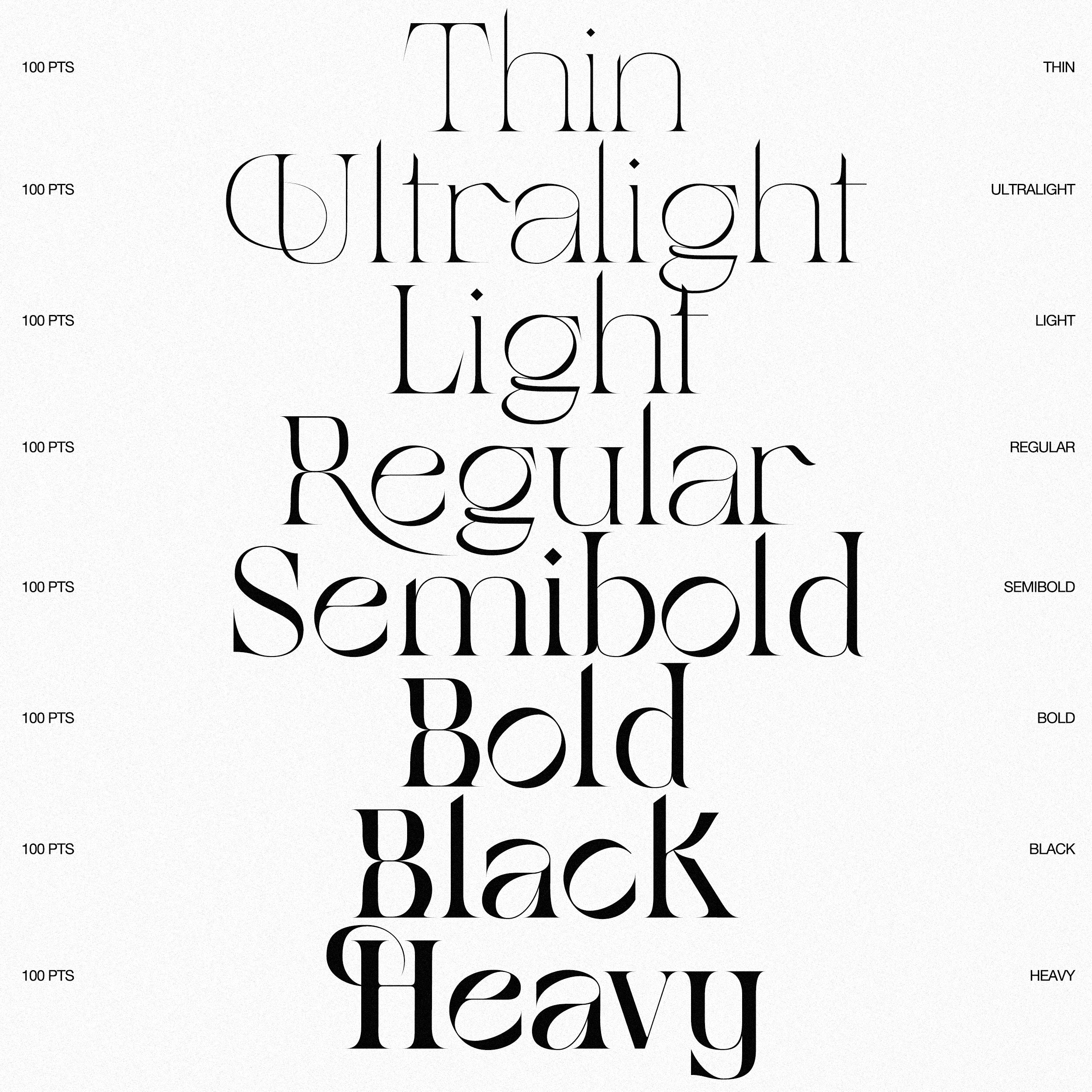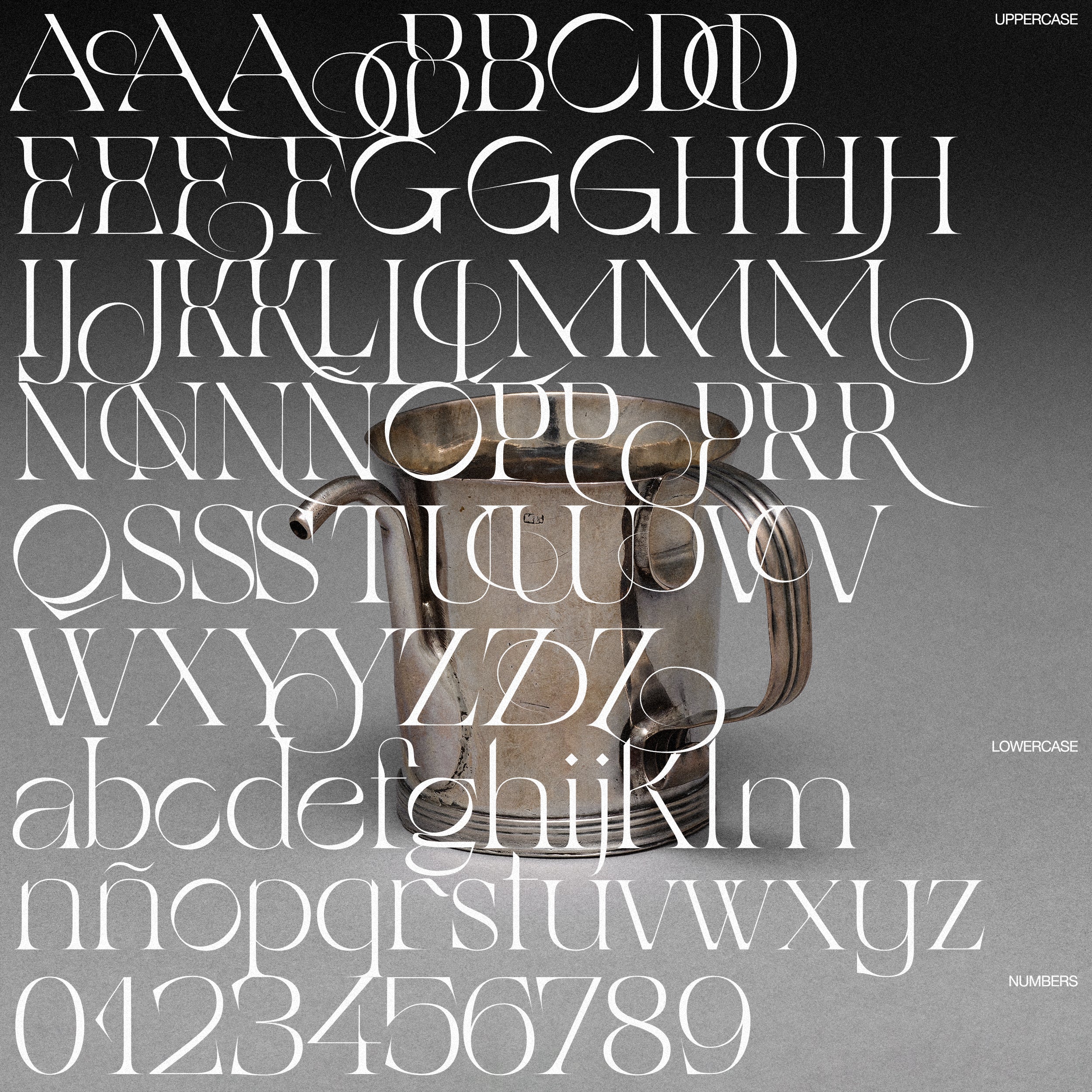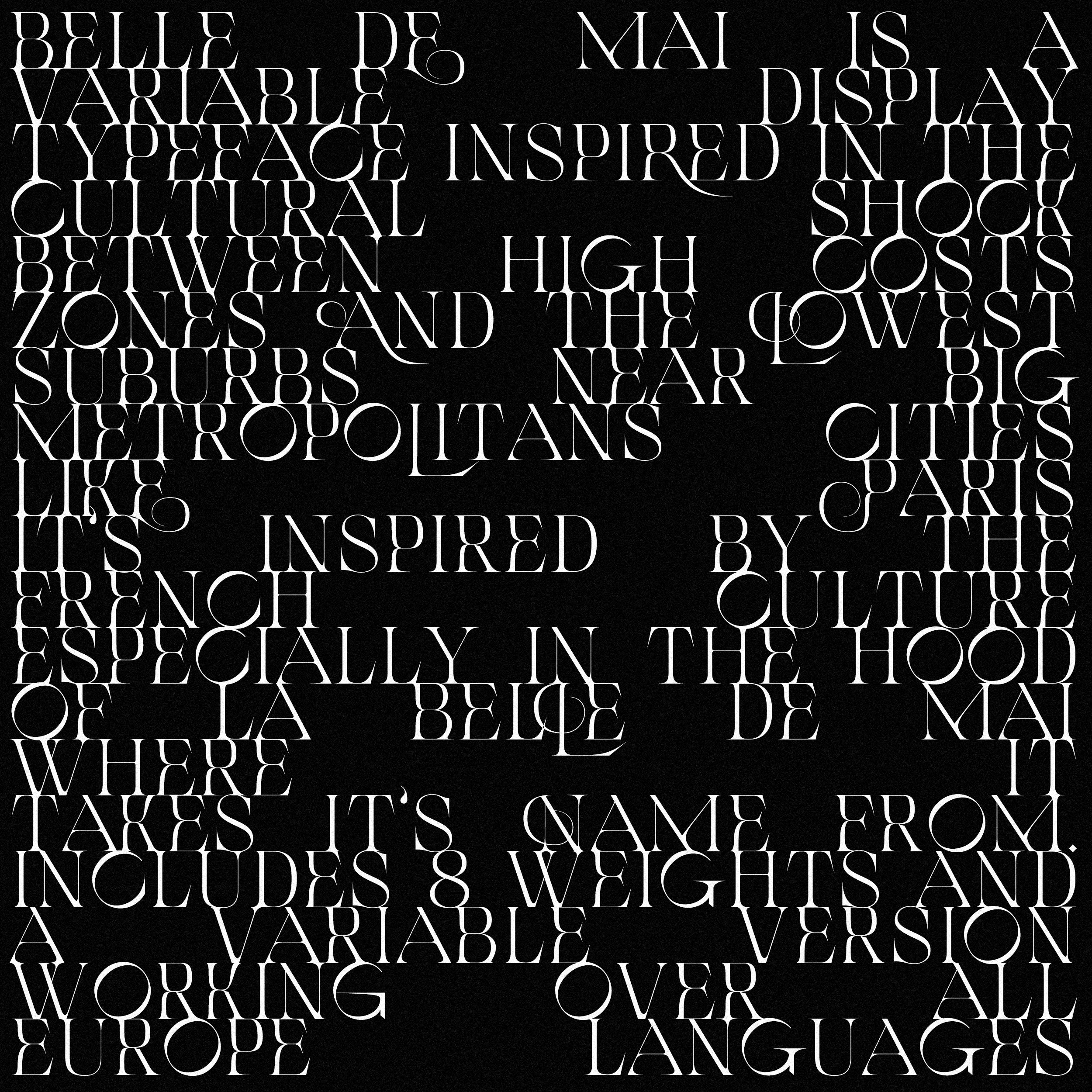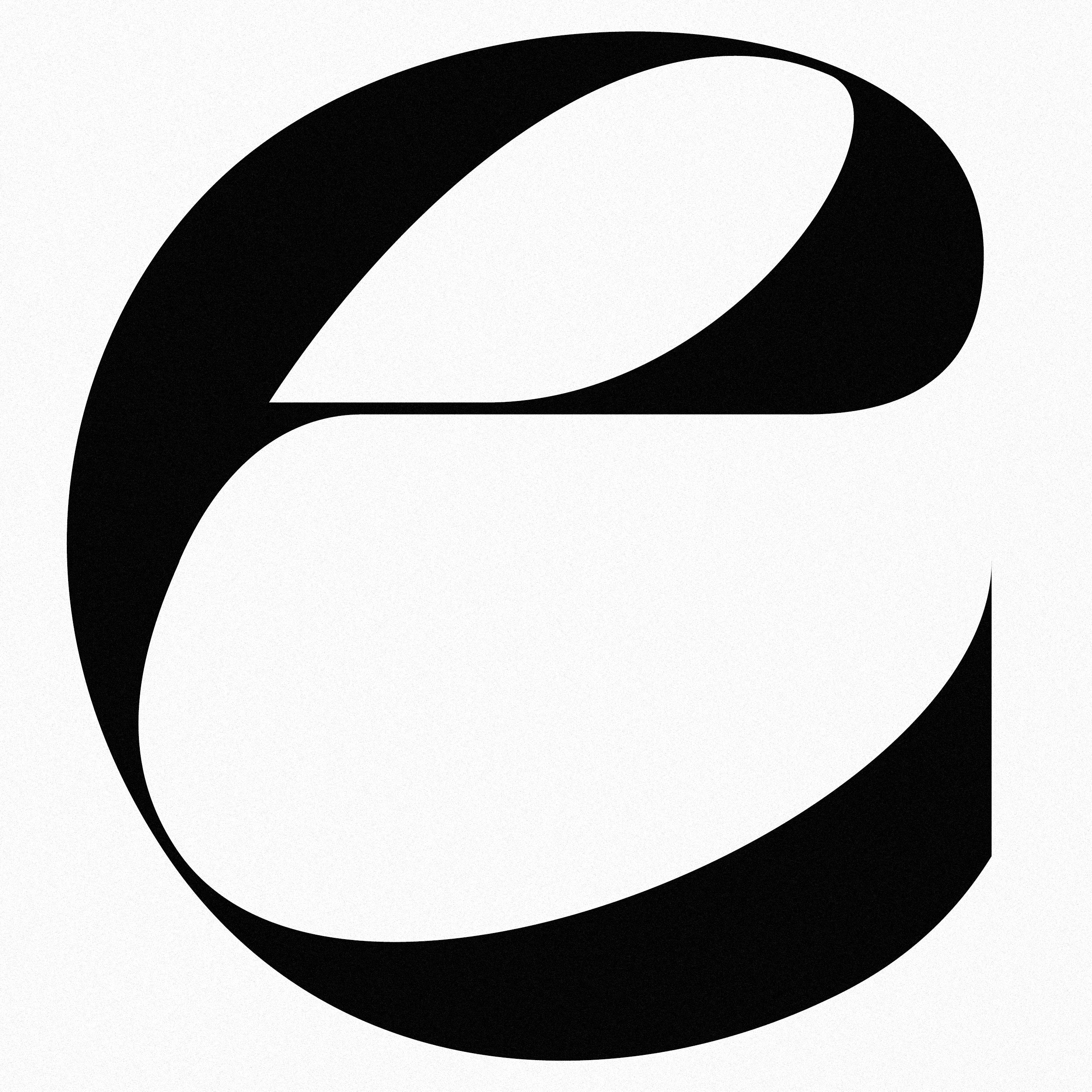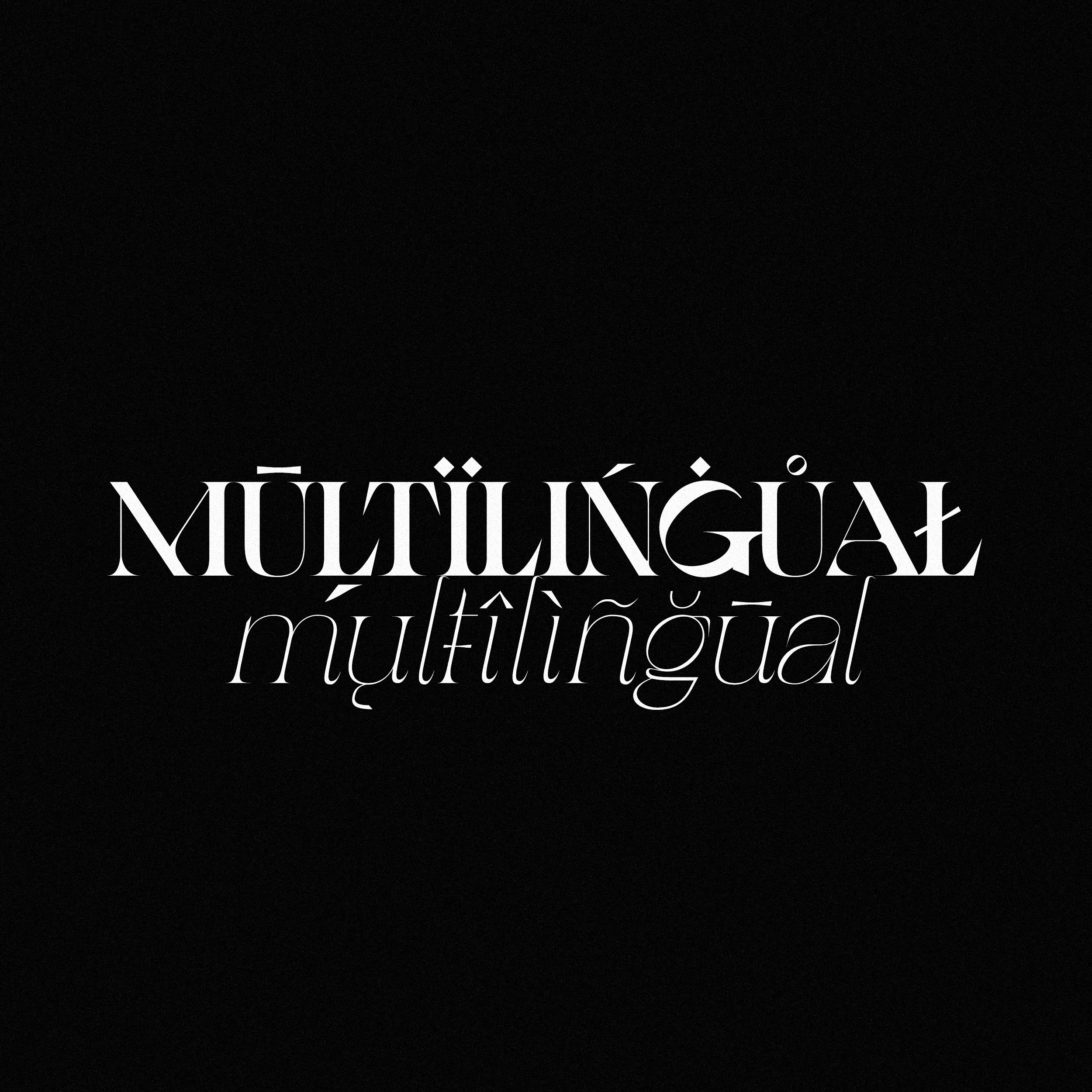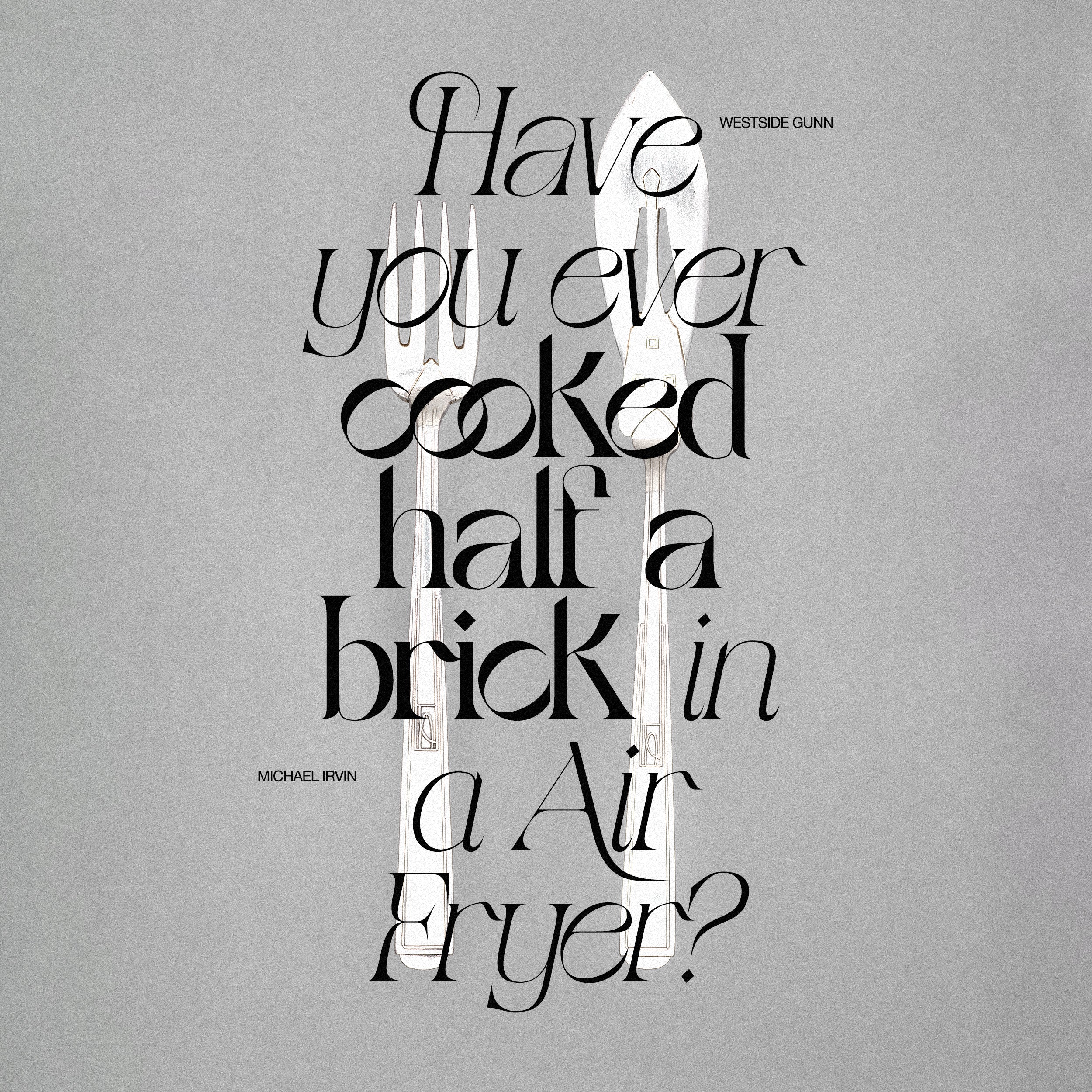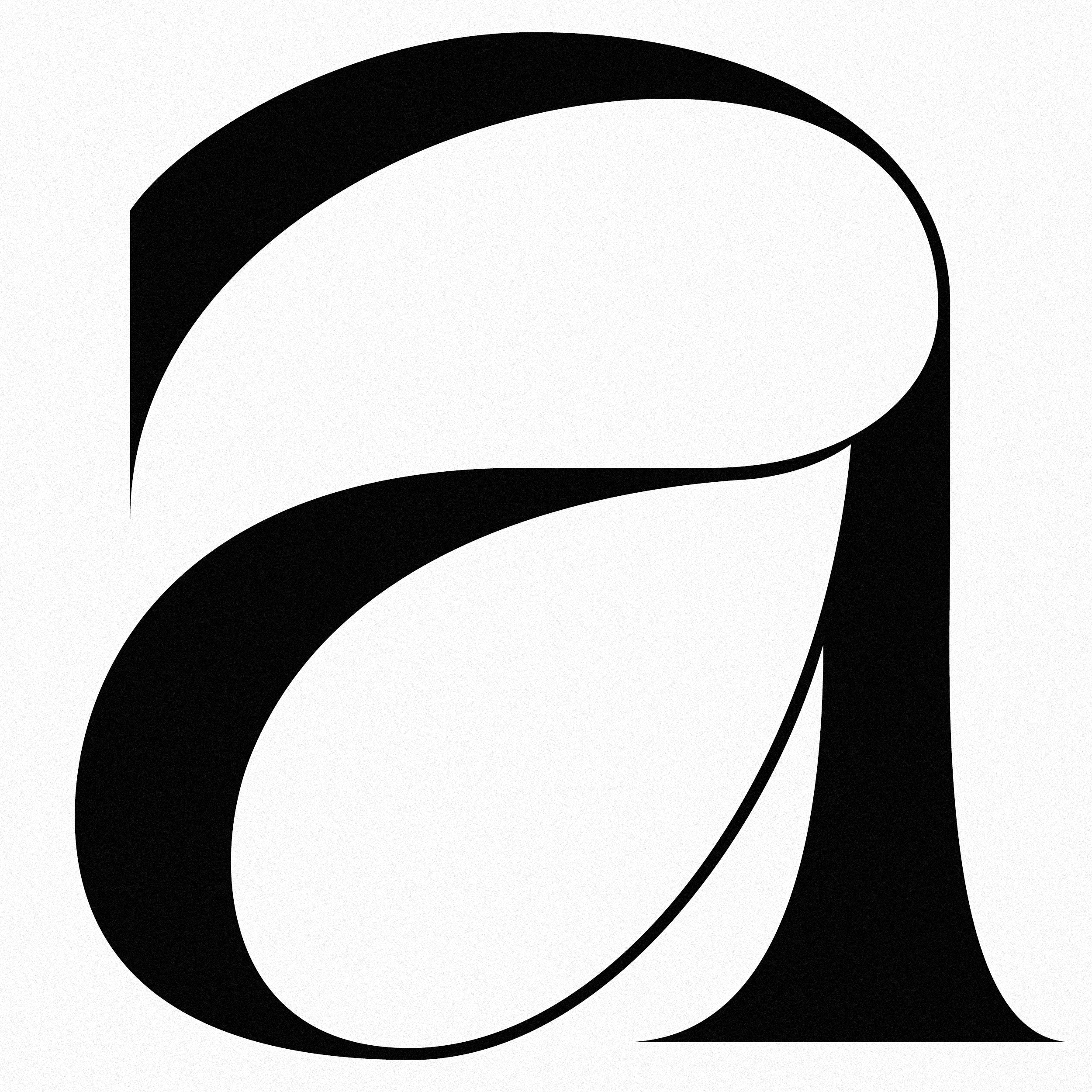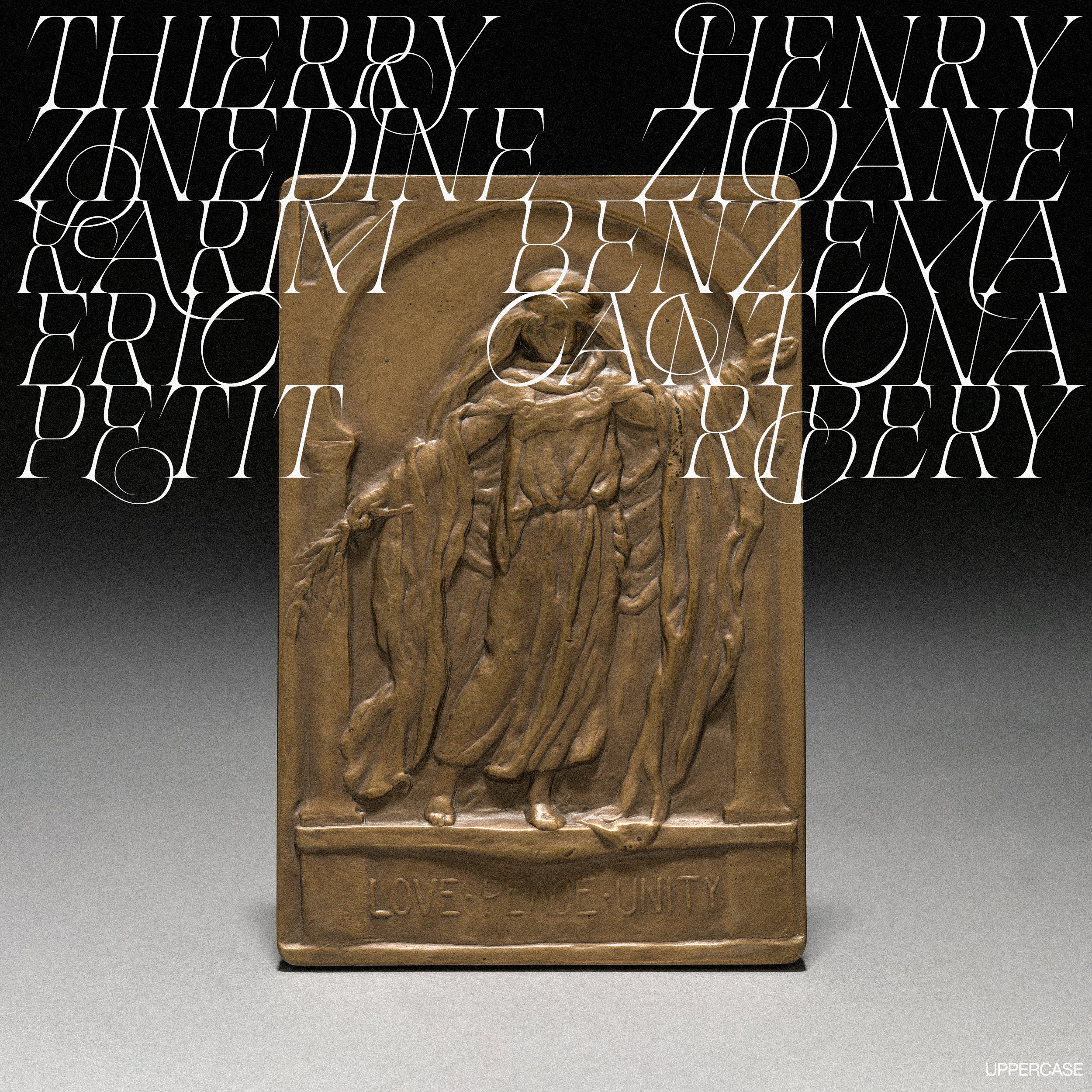
Belle de Mai
Belle de Mai is a distinctive display typeface inspired by the cultural juxtaposition between upscale inner-city areas and more affordable suburbs in major metropolitan cities like Paris. Named after the vibrant neighbourhood of La Belle de Mai, this typeface blends classical elements with a modern, edgy twist.
The lighter weights exude delicacy and expressiveness with a tight, energetic tension, while the heavier weights reveal a softer, more inviting side. Belle de Mai is ideal for creating stunning editorial layouts, impactful branding, and more.